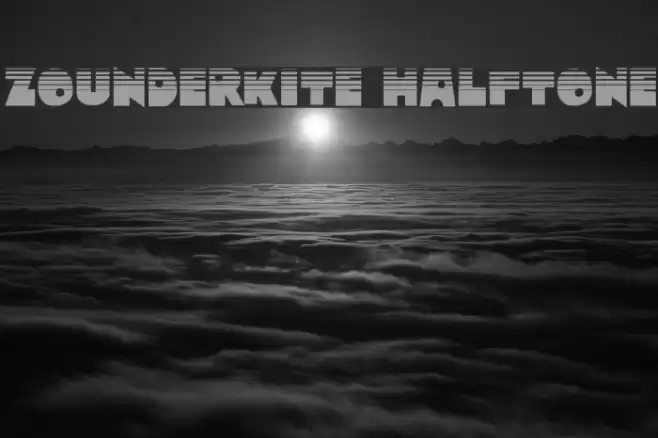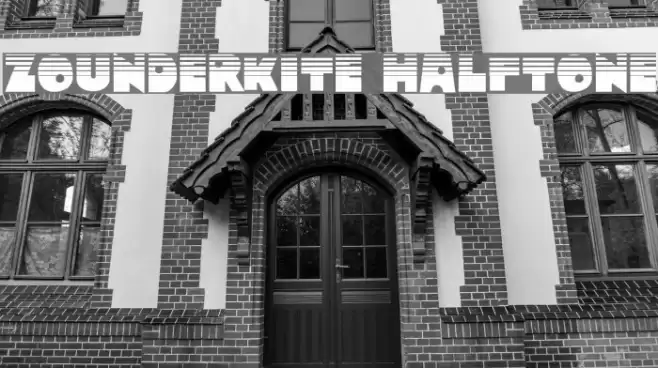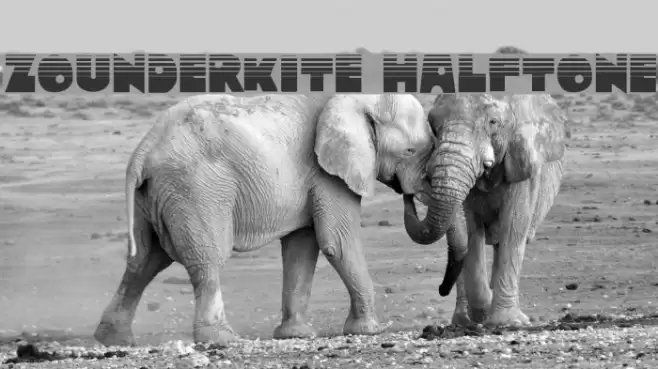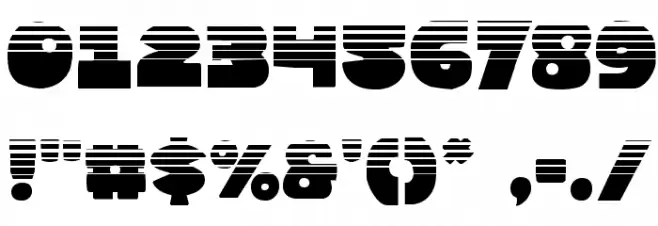
Zounderkite Halftone Font
Zounderkite Halftone Description
This font features a bold, geometric design with a distinctive halftone pattern that creates a sense of depth and texture. The characters are constructed with solid black forms interrupted by horizontal white stripes, giving them a unique, eye-catching appearance. The uppercase and lowercase letters maintain a consistent style, with sharp angles and clean lines that enhance their modern aesthetic. The numerals and special characters follow the same design principles, ensuring a cohesive look across all elements. This font's striking visual impact makes it ideal for projects that require a bold statement.
A bold, geometric font with a halftone pattern and modern appeal from Cartoon fonts.
- Proposed Projects: Ideal for posters, album covers, branding, and any project needing a bold, modern statement.